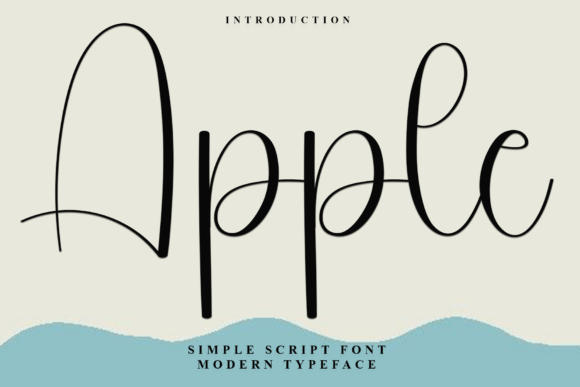
The Magic of Apple Font: A Festive Typeface for Your Holiday Designs
It’s that time of the year again – the holiday season is just around the corner, and as designers, we’re on the lookout for the perfect typography to make our projects shine. I still remember the year I was working on a festive greeting card project, and I just couldn’t find the right font to capture the spirit of the season. My client wanted something that would make their cards stand out, but I was stuck. That’s when I stumbled upon the Apple Font – a game-changer for any designer looking to add a touch of magic to their holiday designs.
A Personal Review: What I Love About Apple Font
I’ve had the pleasure of working with the Apple Font, and here’s what I love about it:
- ✨ Festive and Whimsical: This font is designed to capture the spirit of the holiday season, and it does it with style. The decorative elements and whimsical flair make it perfect for greeting cards, gift tags, and holiday-themed projects.
- 🎉 Easy to Use: Whether you’re a seasoned designer or a creative hobbyist, this font is easy to use and integrate into your projects.
While I love the Apple Font, there are a few things to keep in mind:
- ⚠️ Limited Use Cases: While this font is perfect for holiday-themed projects, it might not be the best choice for more formal or professional designs.
The Story Behind Apple Font: A Designer Inspiration
The Apple Font was designed with the holiday season in mind. The creator wanted to craft a typeface that would capture the magic and wonder of this special time of year. With its decorative elements and whimsical flair, this font is sure to bring a touch of enchantment to your designs.
| Font Name | Apple Font |
| What is the Apple Font? | The Apple Font is a festive and merry typeface designed to capture the spirit of the holiday season. |